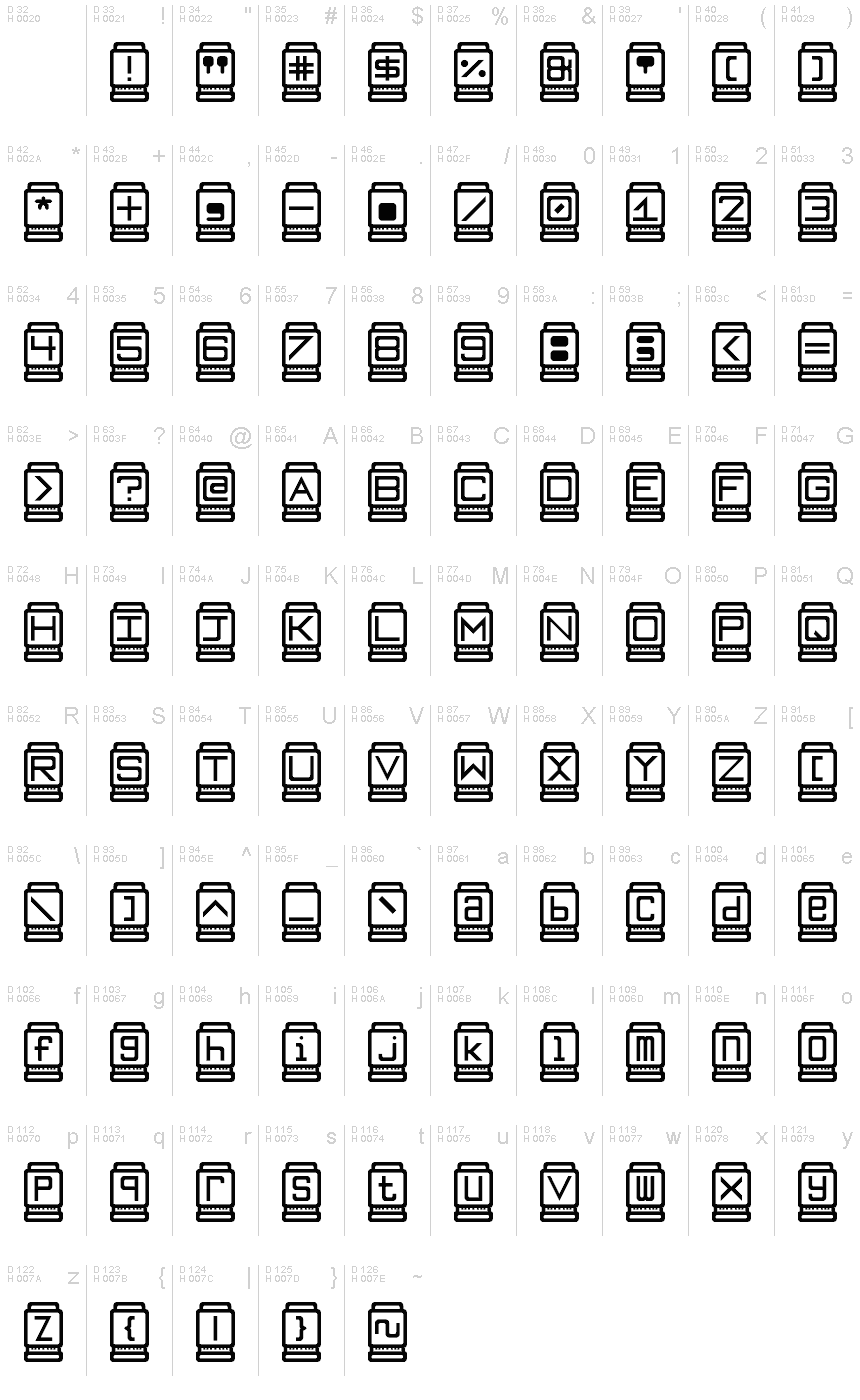
Nixies Regular
Designer description: Fontstruct's first vacuum tube font!
This is a design inspired by Nixie tubes. Since these "tubes" are iconographic, they could theoretically represent 12AX7s, 6L6s, KT88s, or whatever tube/valve you wanted. Feel free to clone and build on this concept.